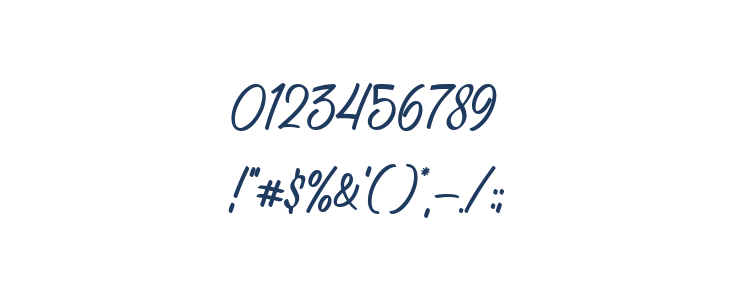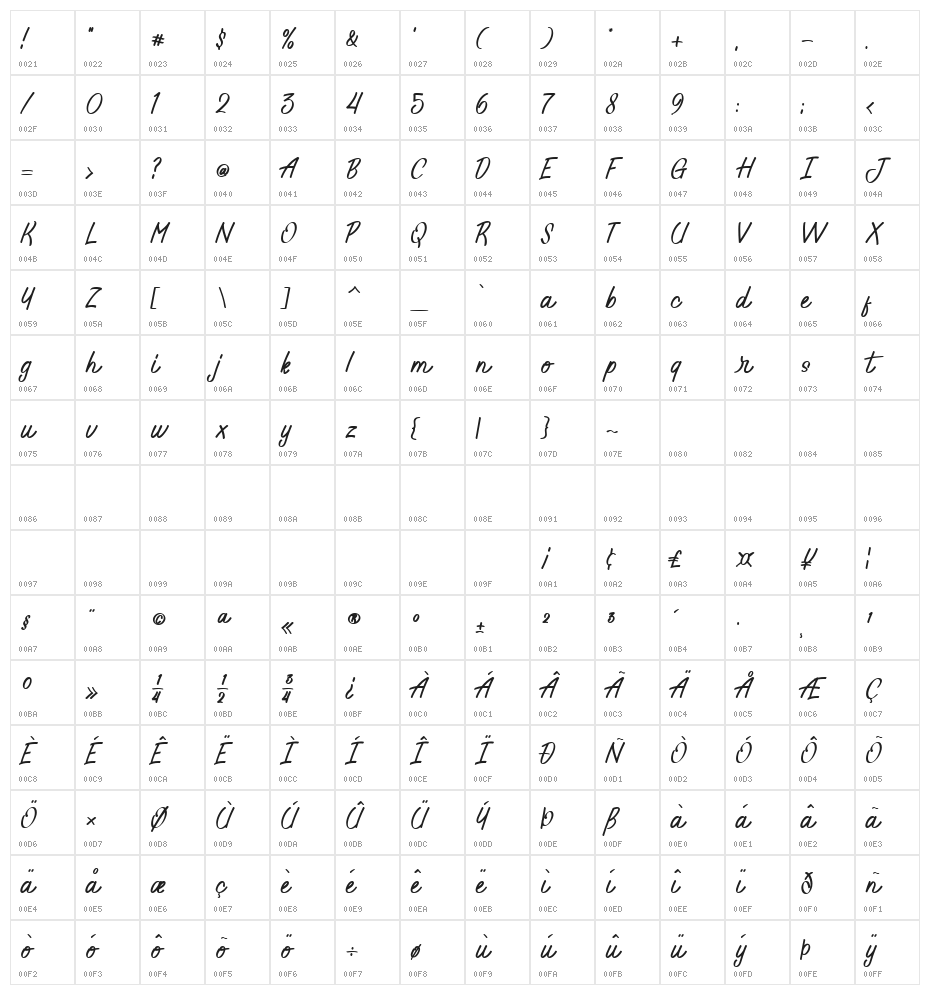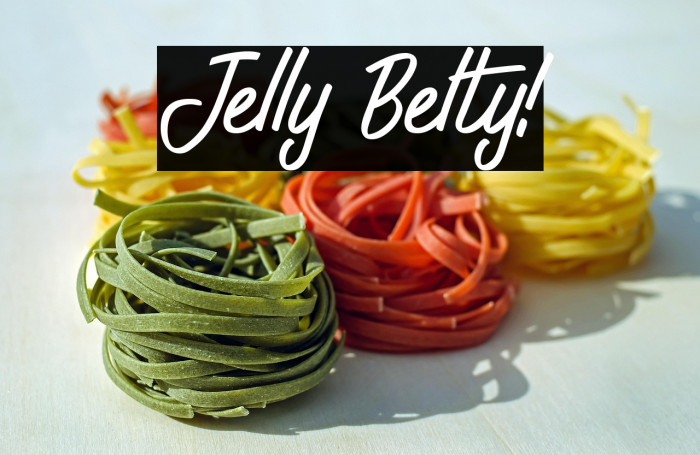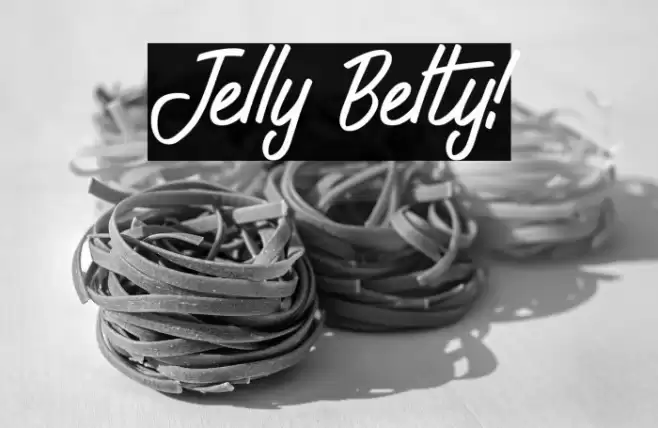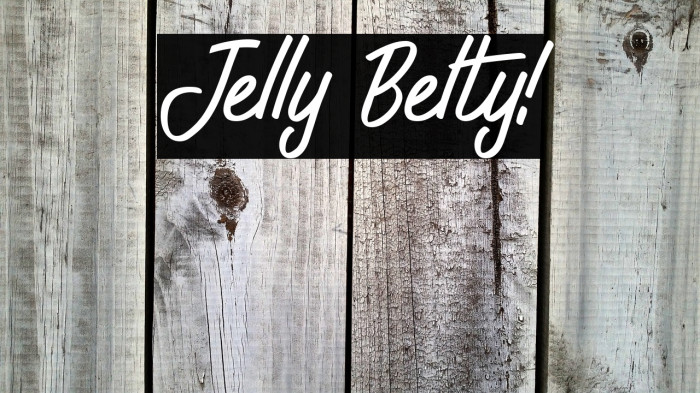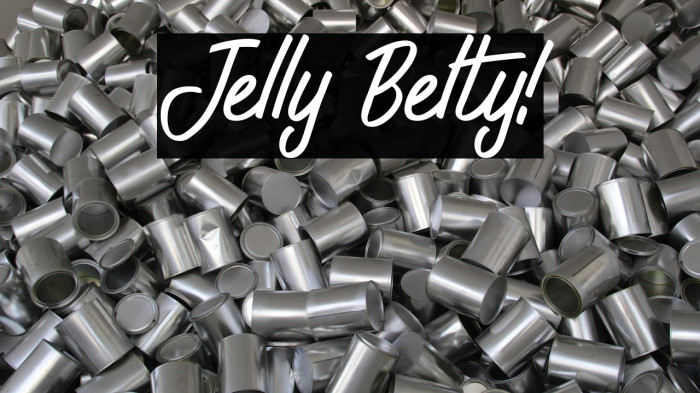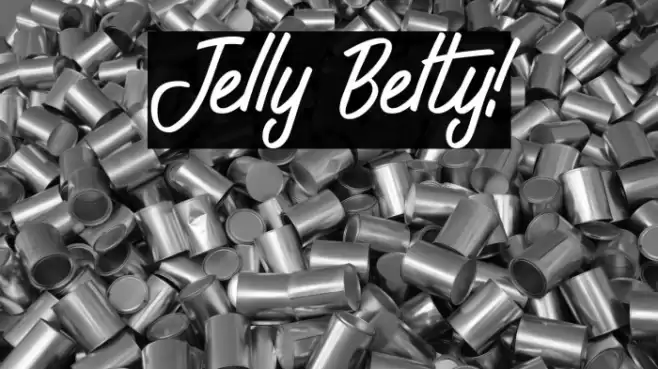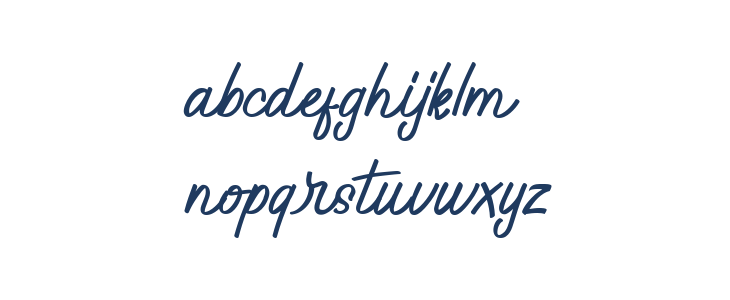
Jelly Belty! Font
Jelly Belty! Description
This font exudes a playful and energetic vibe, characterized by its fluid, cursive style that mimics natural handwriting. The letters are slightly slanted, giving a sense of motion and liveliness. The strokes are smooth and consistent, with a medium contrast between thick and thin lines, adding to its legibility and charm. The uppercase letters are bold and prominent, while the lowercase letters maintain a friendly and approachable appearance. The numbers and special characters are crafted with the same attention to detail, ensuring a cohesive look across all text elements.
| Proposed Projects | Ideal for greeting cards, invitations, personal branding, and playful logos. |